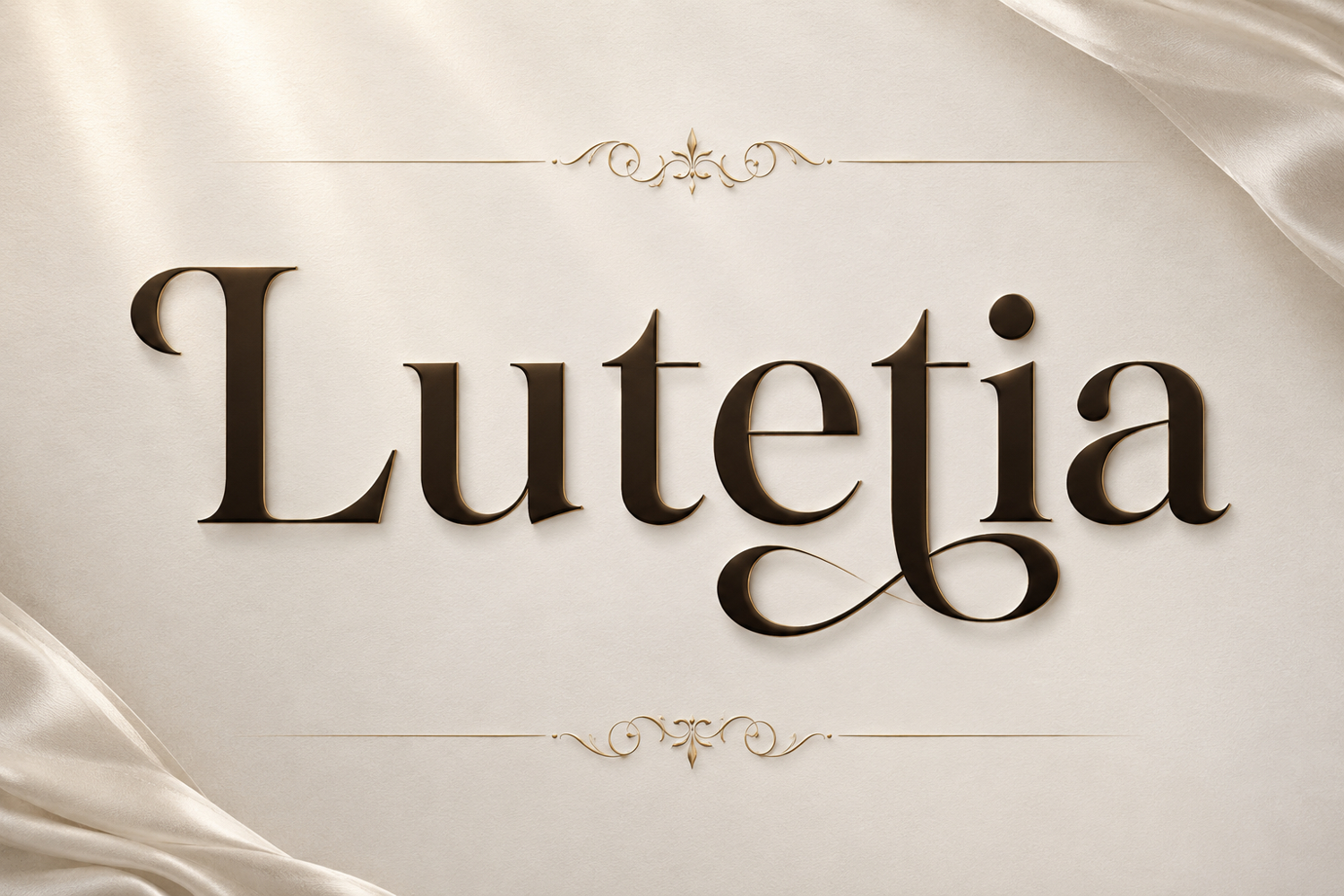
Lutetia
Lutetia is a premium quality serif font for companies, suitable for various uses for mockups for letters and also for various types of designs and other office needs.